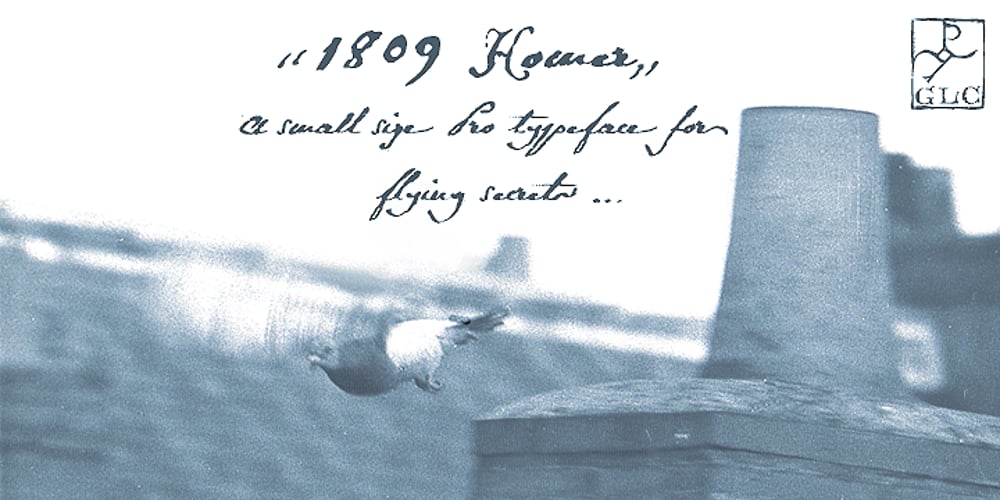
1809 Homer Font Family was designed by published by GLC. 1809 Homer contains 1 styles and family package options. This family is inspired by the small hands used in the 1700’s 1800’s to write messages carried by carrier pigeons, also named “homers”, before the use of photography and microfilms in the same way. So, it is a “small eye” or “small x-height” font. It is enriched with numerous alternates and ligatures, as to look like a various real and written manual. The standard characters set is completed with accented or specific characters for Western (Including Celtic) and Central Europe, Baltic, Eastern Europe and Turkish.